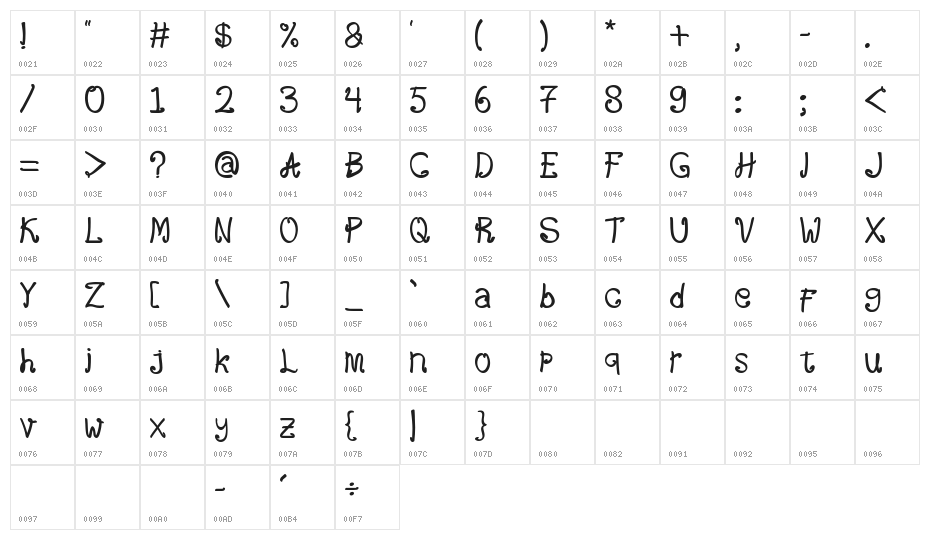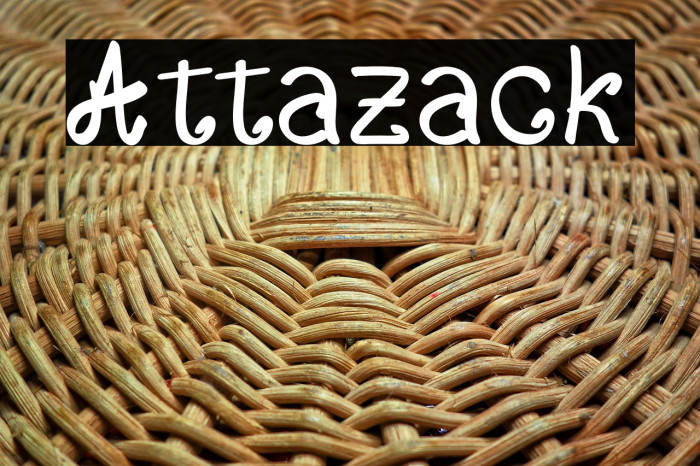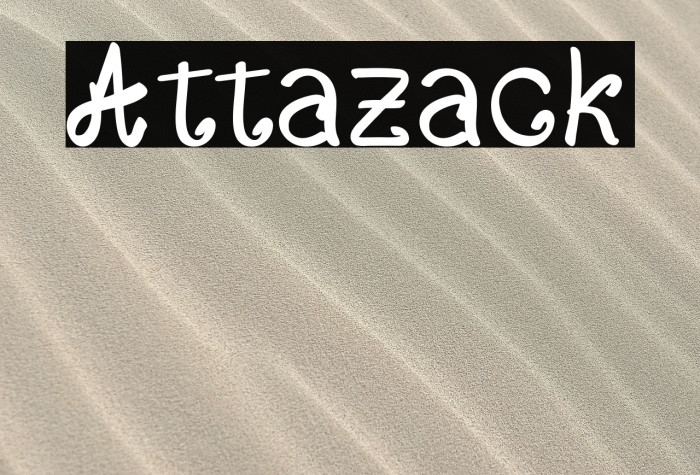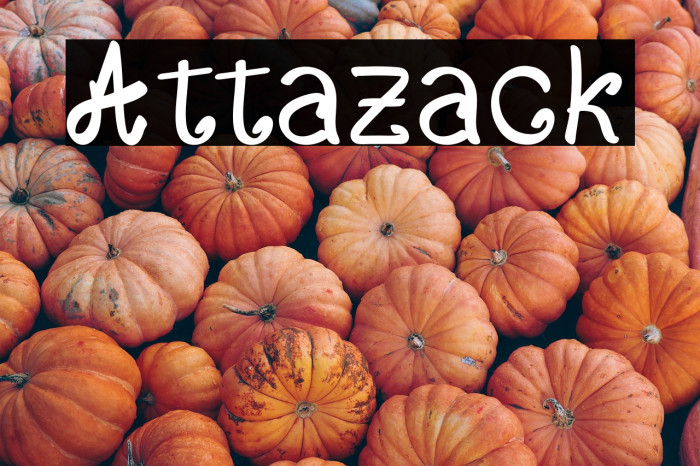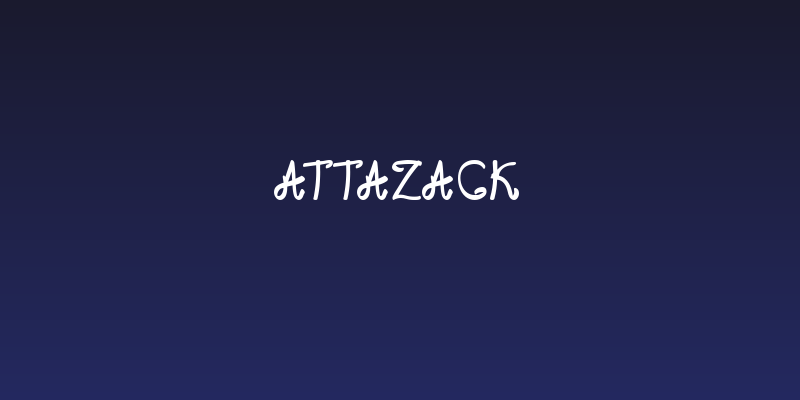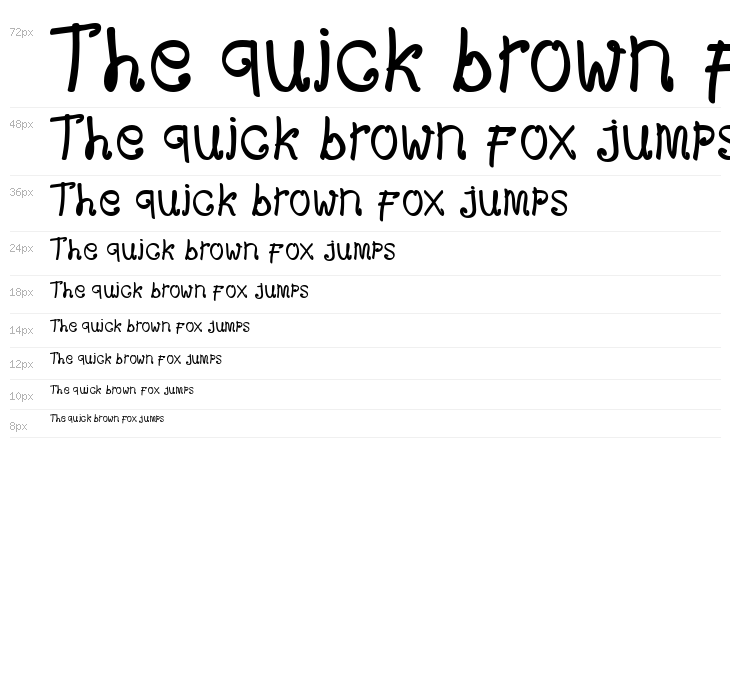
Attazack Font
Attazack Description
This playful and whimsical font features a handwritten style with a casual and friendly appearance. The letters are characterized by their rounded forms and slight slant, giving them a dynamic and lively feel. The strokes are consistent in thickness, providing a uniform look across all characters. The font includes a full set of uppercase and lowercase letters, numerals, and a variety of special characters, making it versatile for different design needs. Its informal style is perfect for projects that require a personal touch or a fun, approachable vibe.
| Proposed Projects | Ideal for greeting cards, children's books, playful branding, and social media graphics. |